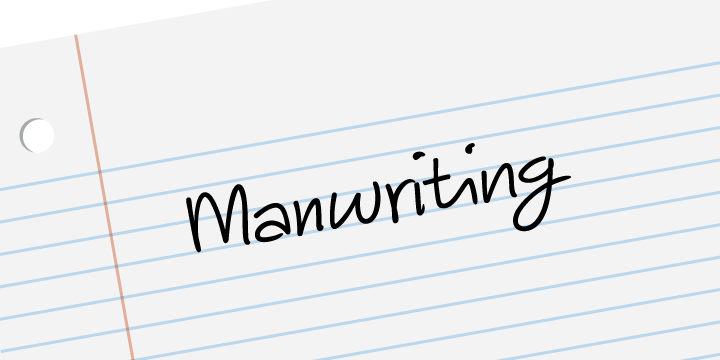
Manwriting Font is a charismatic and authentic script typeface that brings a unique blend of masculine strength and personal touch to any design project. Its expressive strokes, often with a robust or slightly rugged feel, make it an excellent choice for projects aiming to convey sincerity, craftsmanship, and a grounded aesthetic. Imagine it perfect for artisanal product labels, vintage-inspired branding, heartfelt greeting cards for men, creative blog titles, unique merchandise designs, or casual event invitations. This font excels at conveying warmth, approachability, and a genuine handcrafted quality, ensuring your message feels authentic and inviting to your audience. It's particularly effective when you want to evoke a sense of individual character and reliable charm.
What makes Manwriting Font truly exciting is its ability to infuse designs with a sense of honest, unpretentious personality. Unlike overly polished script fonts, Manwriting Font often embraces subtle imperfections that give it a unique character, making it feel less like a manufactured product and more like a sincere message penned by hand. This authentic charm helps create an immediate bond with the viewer, making your content more relatable and memorable. It’s a font that doesn't just display text; it tells a story, offering a refreshing departure from more conventional typefaces and breathing genuine character into your creative endeavors. Manwriting Font Free Download is a powerful tool for brands and creatives who want to project an image that is inviting, genuine, and full of heartfelt originality.
The Manwriting Font family typically offers various options to enhance its expressive capabilities. You'll often find it available in a strong, legible regular weight that best showcases its unique hand-drawn style. Some versions might include stylistic alternatives for certain characters, ligatures, or a set of swashes that further emphasize its handcrafted appeal and allow for more customized typographic compositions, mimicking natural handwriting variations. The comprehensive character set generally covers standard Latin characters, numbers, and a selection of punctuation marks, ensuring that Manwriting Font is suitable for a wide variety of creative and commercial applications. Its distinctive and memorable presence ensures that any project featuring Manwriting Font will leave a strong, lasting impression.